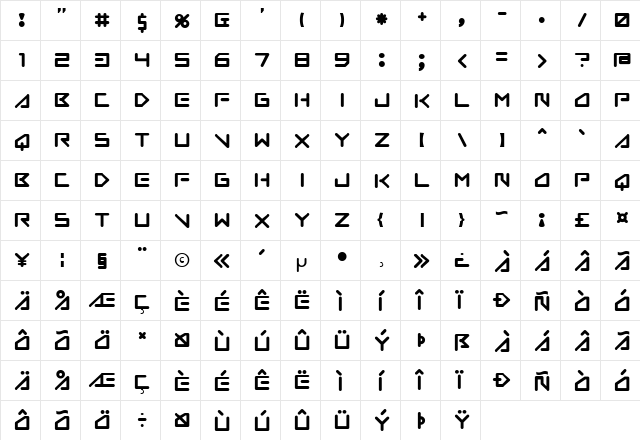
Insane hours 2 Regular
Design Context for Insane hours 2 Typeface
Insane hours 2 is a composed and adaptable typeface that performs quietly and consistently across a wide range of design contexts.